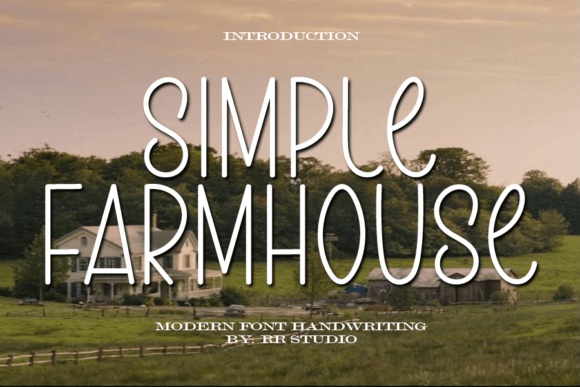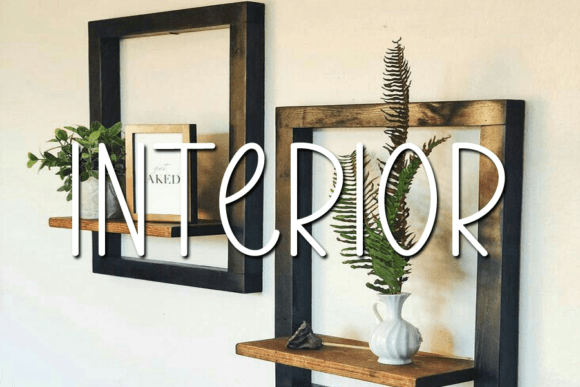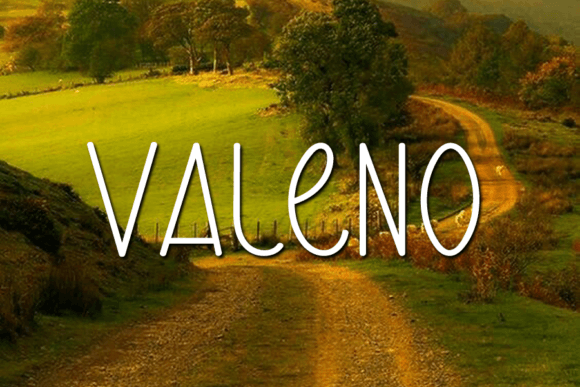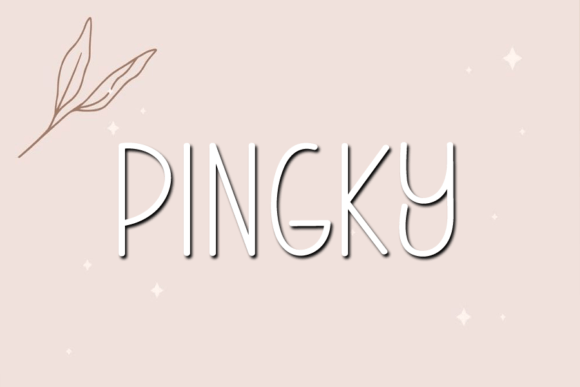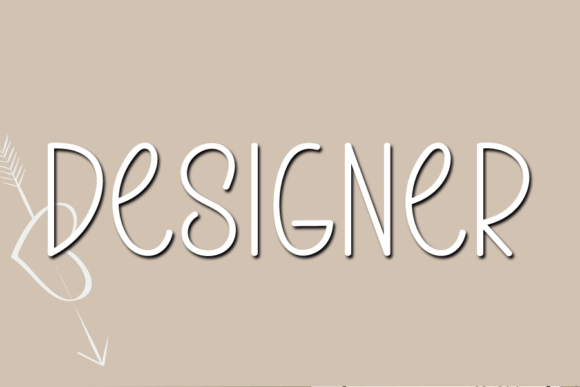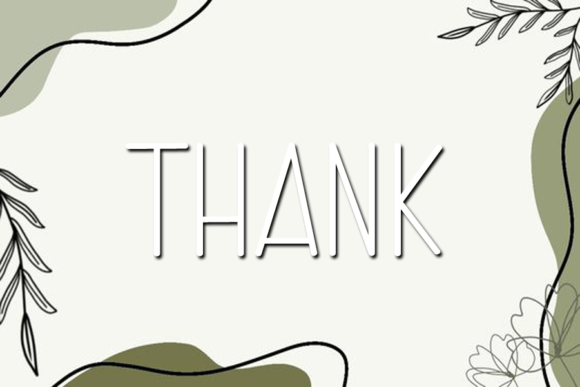
Simple Farmhouse Font
About Simple Farmhouse Font
Simple Farmhouse is a classic and simple handwritten font created in a random and freestyle.
It is suitable for a logotype, headline, corporate identity, brand identity, apparel industry, poster, music, movie, game, magazine, book, comic, cartoon, YouTube, Instagram, website, or any of your creative design projects.